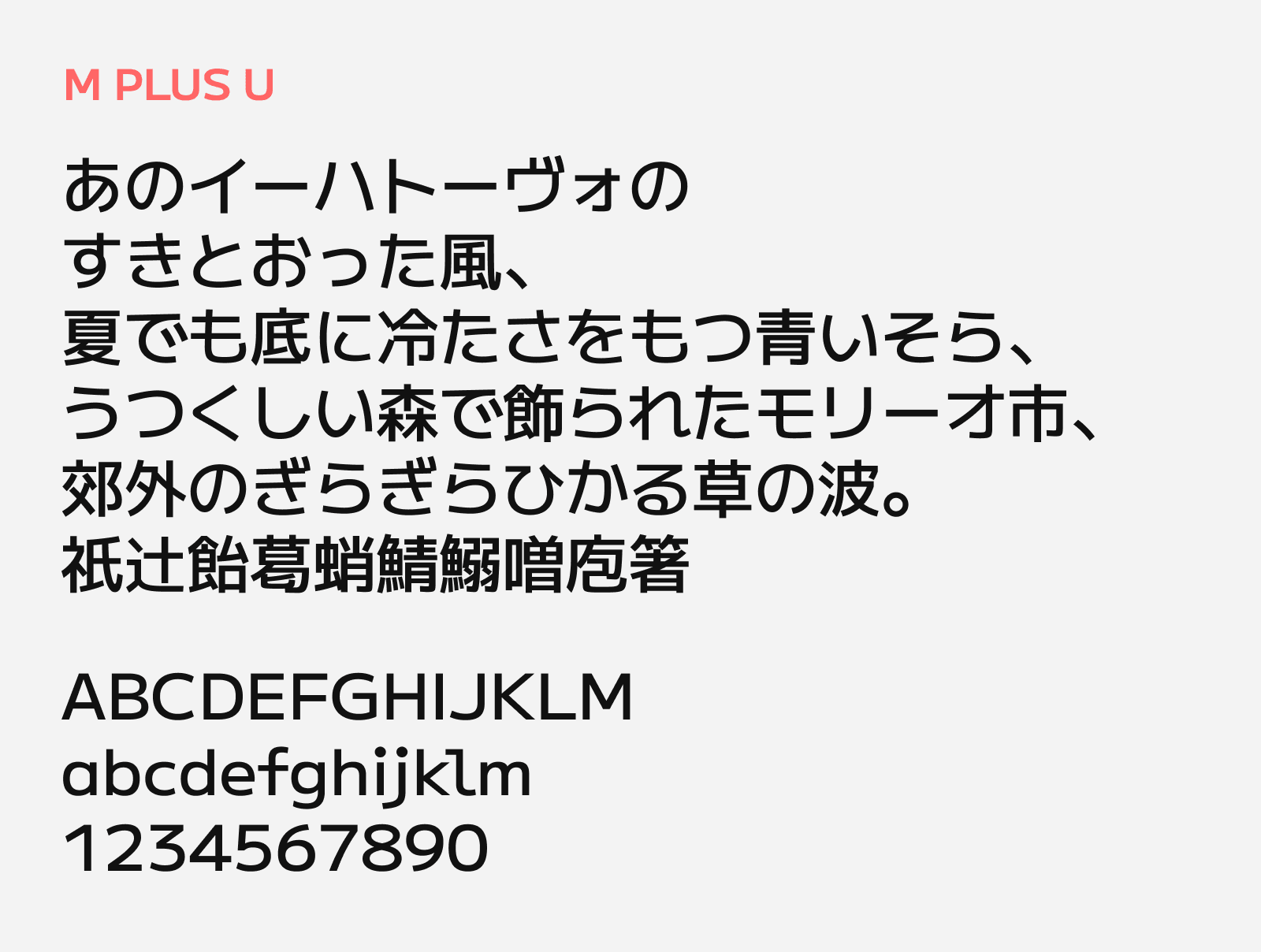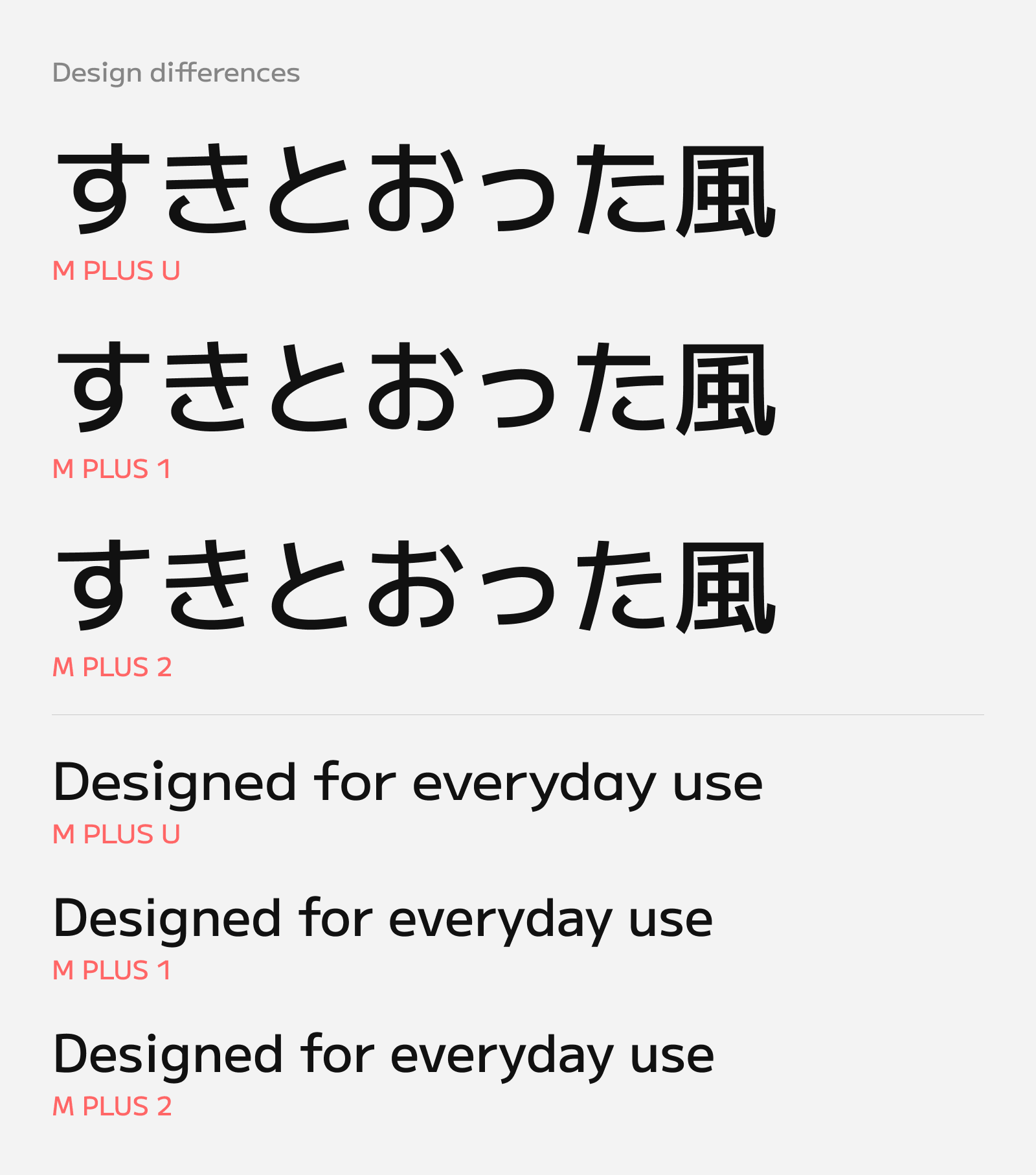
M PLUS U
M PLUS U is a free-to-download Japanese sans-serif font from the M+ FONTS project, designed by Coji Morishita. The “M” in M+ stands for “minimum,” and the plus sign signals “a little more than minimum” — the guiding idea behind the whole M+ FONTS family, which started as an open-source project years ago and has since been rebuilt from the ground up with Google’s support. Where M PLUS U sits apart from its newer siblings, M PLUS 1 and M PLUS 2, is in its letterforms: rather than the redesigned GF Latin Plus glyph set those two now use, M PLUS U carries the project’s well-established original character design across a full nine-weight range, from a hairline Thin all the way up to a heavy Black. It’s a modern, comfortable sans-serif built around that same “minimum plus a bit more” philosophy — clean strokes, generous counters, no extra flourish. It’s meant to disappear into whatever you’re using it for while still looking considered.
The differences might be hard to notice but by putting them closer, we can see each unique characteristics if we looked closely. The “U” means Universal, designing with maximum legibility and universally recognizable in mind, for UI font and as an accessible/readability font (UD font). Hence you can see the kana characters are more expanded out and with larger internal spaces, while the latin characters are appeared more expanded. The M PLUS 1 is more modern and formal, designed for everyday use cases while the M PLUS 2 is adhering more towards the traditional form, where curvatures and more naturally drawn strokes are more profound.
Supporting more than 5,700 kanji (full JIS Level 1 + large partial level 2) alongside hiragana, katakana, and a full Latin and Latin Extended character set (with Vietnamese coverage too), M PLUS U is built for everyday, general-purpose use: body text, UI copy, documents, anything that needs to read cleanly across a wide range of sizes and weights. And since it ships as a variable font, you’re not limited to the nine named instances — you can dial in any weight along that Thin-to-Black spectrum. It’s released under the SIL Open Font License, so it’s free for both personal and commercial projects.
- Hiragana and Katakana
- Kanji (full JIS Level 1 and partial Level 2)
- Alphanumerics
- Symbols and Punctuations